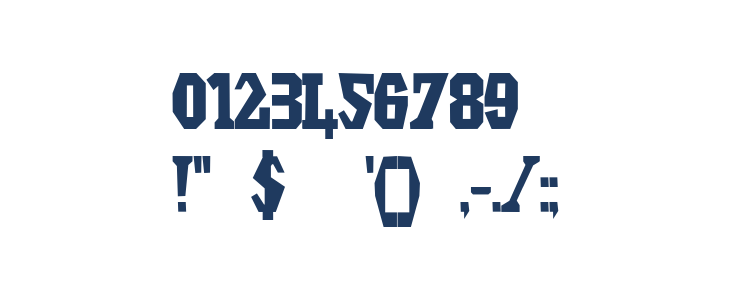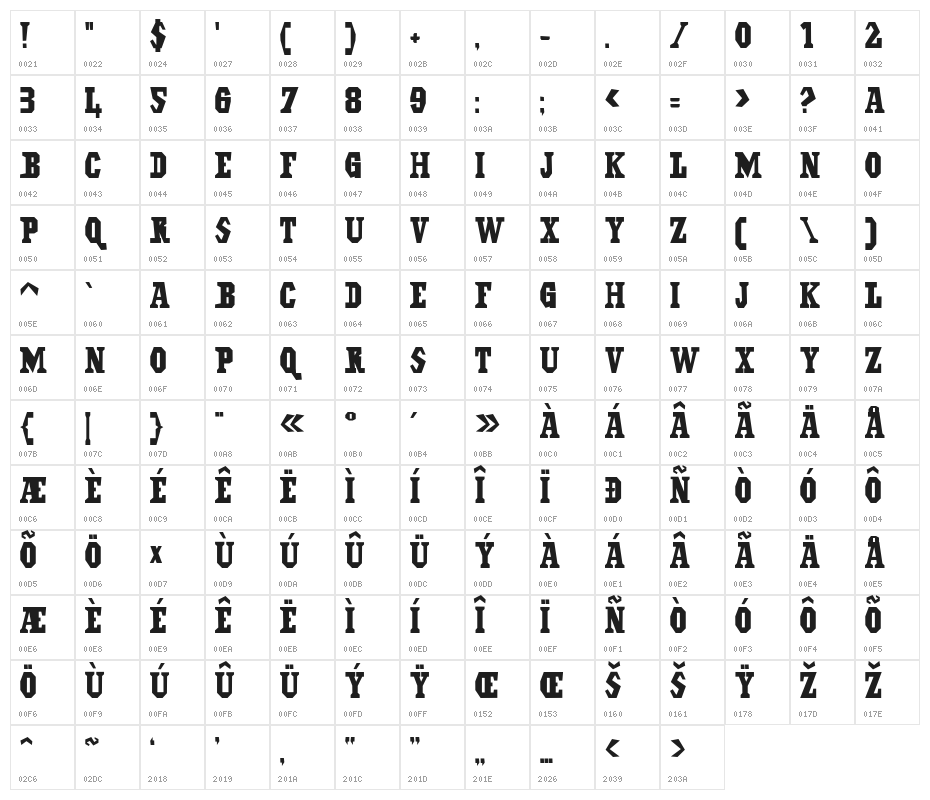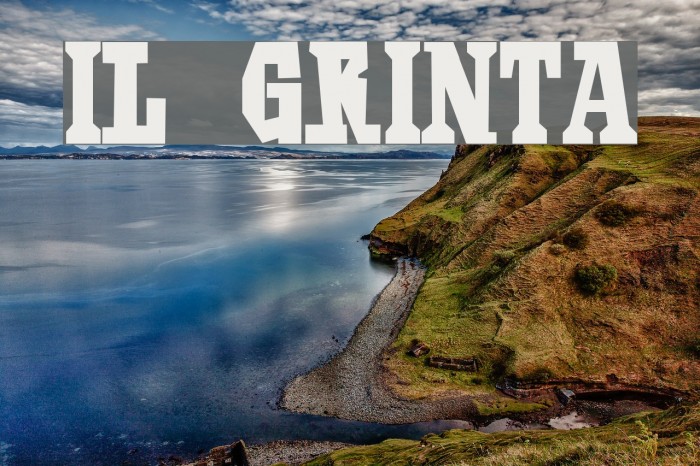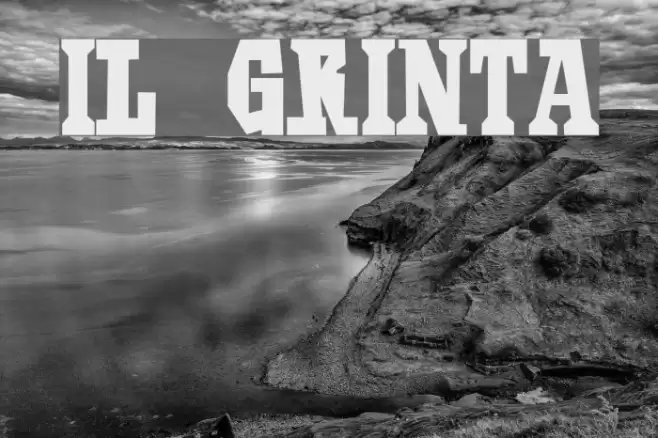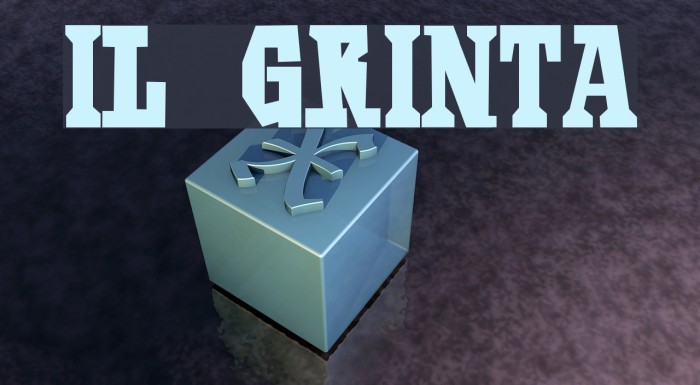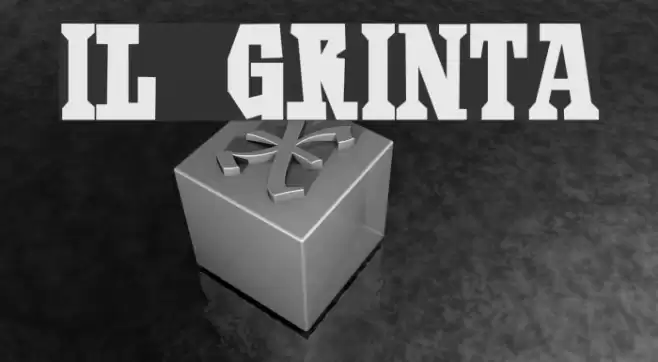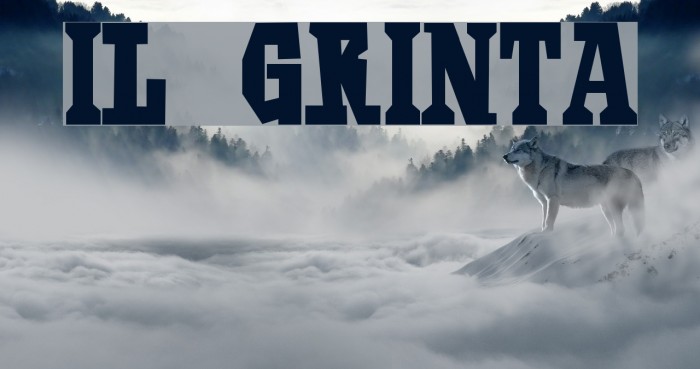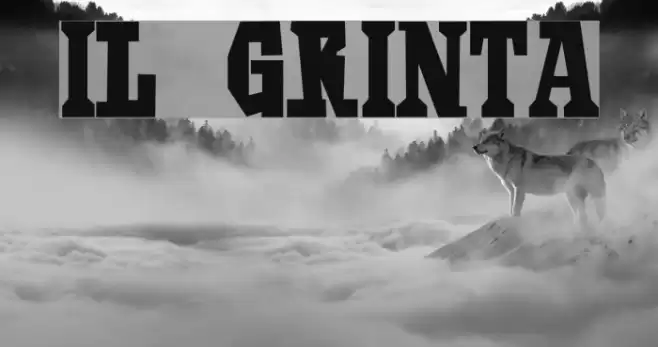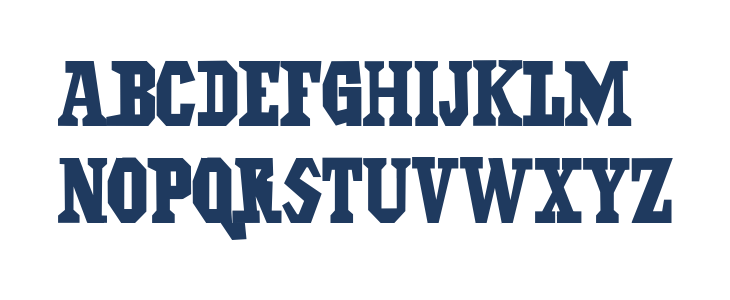
Il Grinta Font
Il Grinta Description
This font features a bold and robust design with strong geometric shapes and sharp angles. The characters are heavily stylized, giving them a unique and aggressive appearance. The uppercase letters are particularly striking, with a blocky and powerful presence that commands attention. The numbers and special characters maintain this bold aesthetic, ensuring consistency across all glyphs. This font is well-suited for projects that require a strong visual impact, such as posters, logos, and headlines. Its distinctive style makes it ideal for branding that seeks to convey strength and modernity.
| Proposed Projects | Ideal for posters, logos, headlines, and branding projects that require a bold statement. |